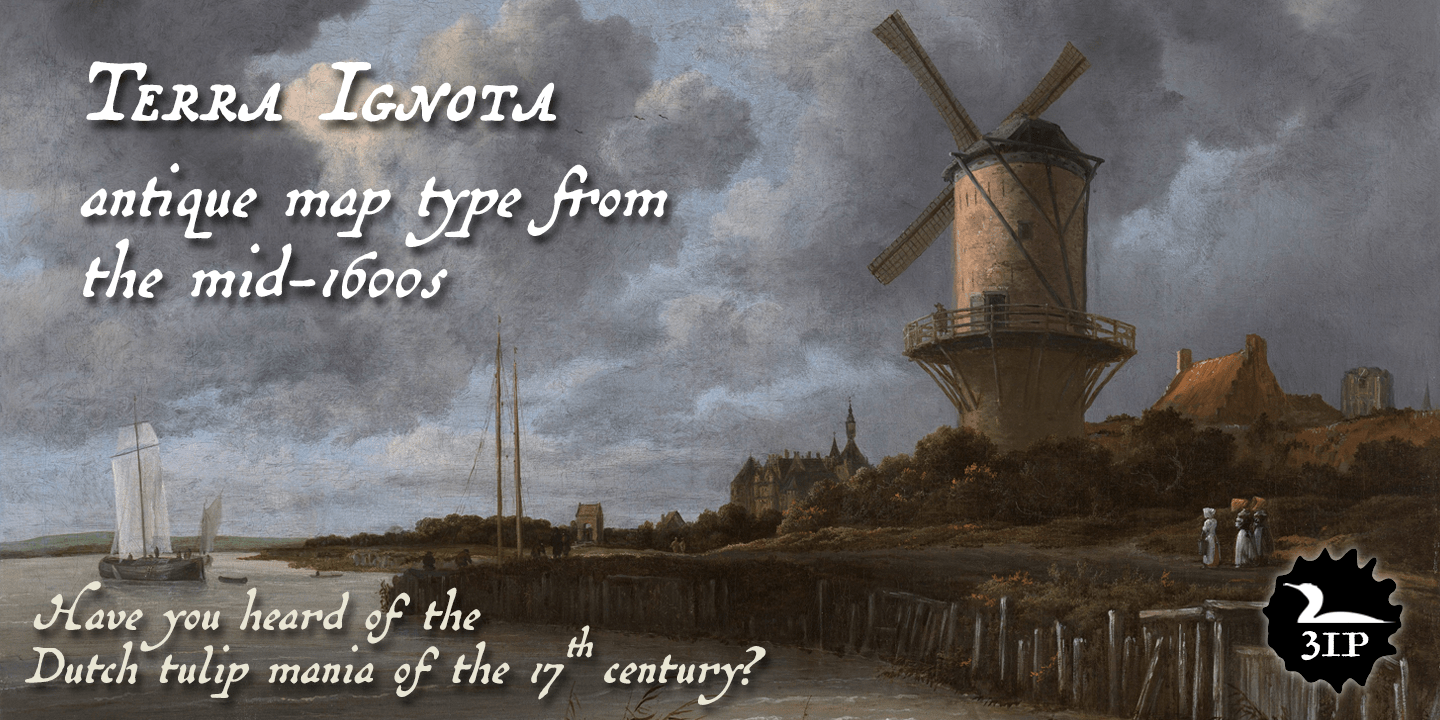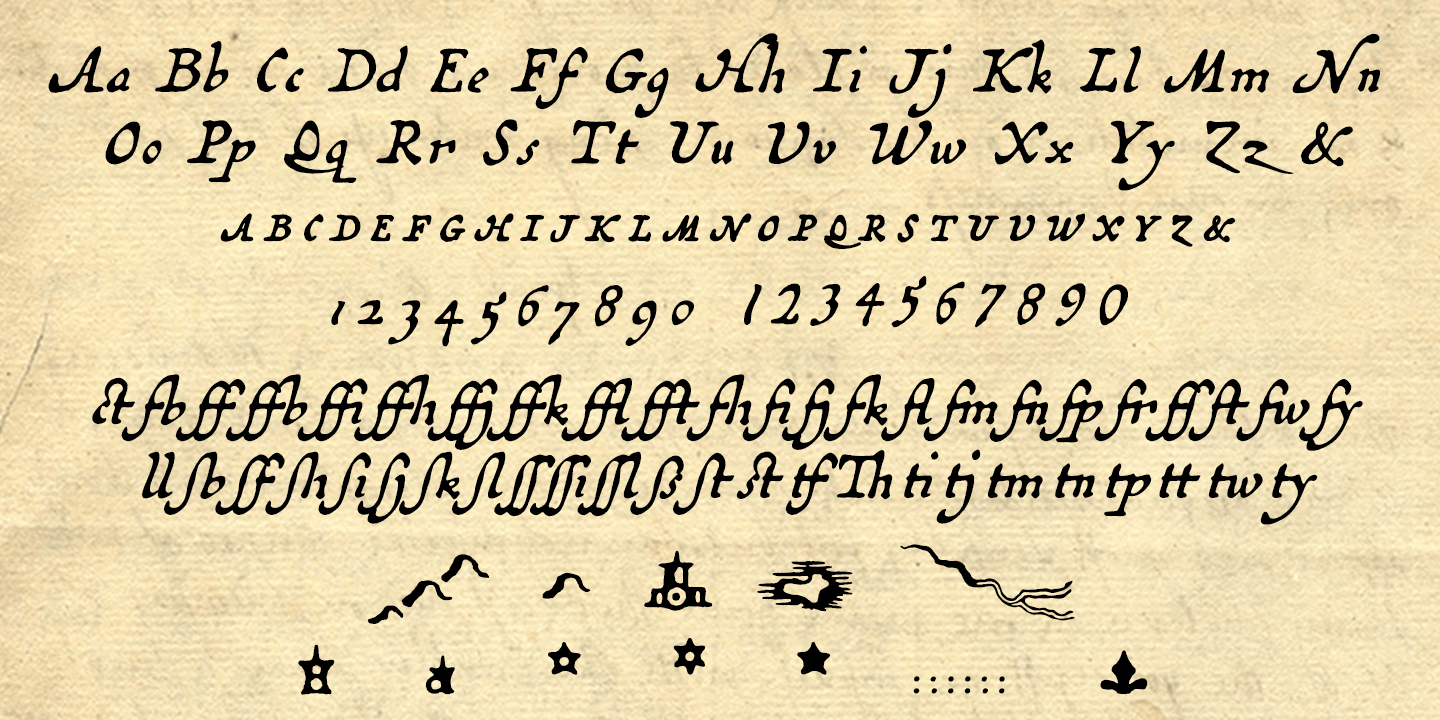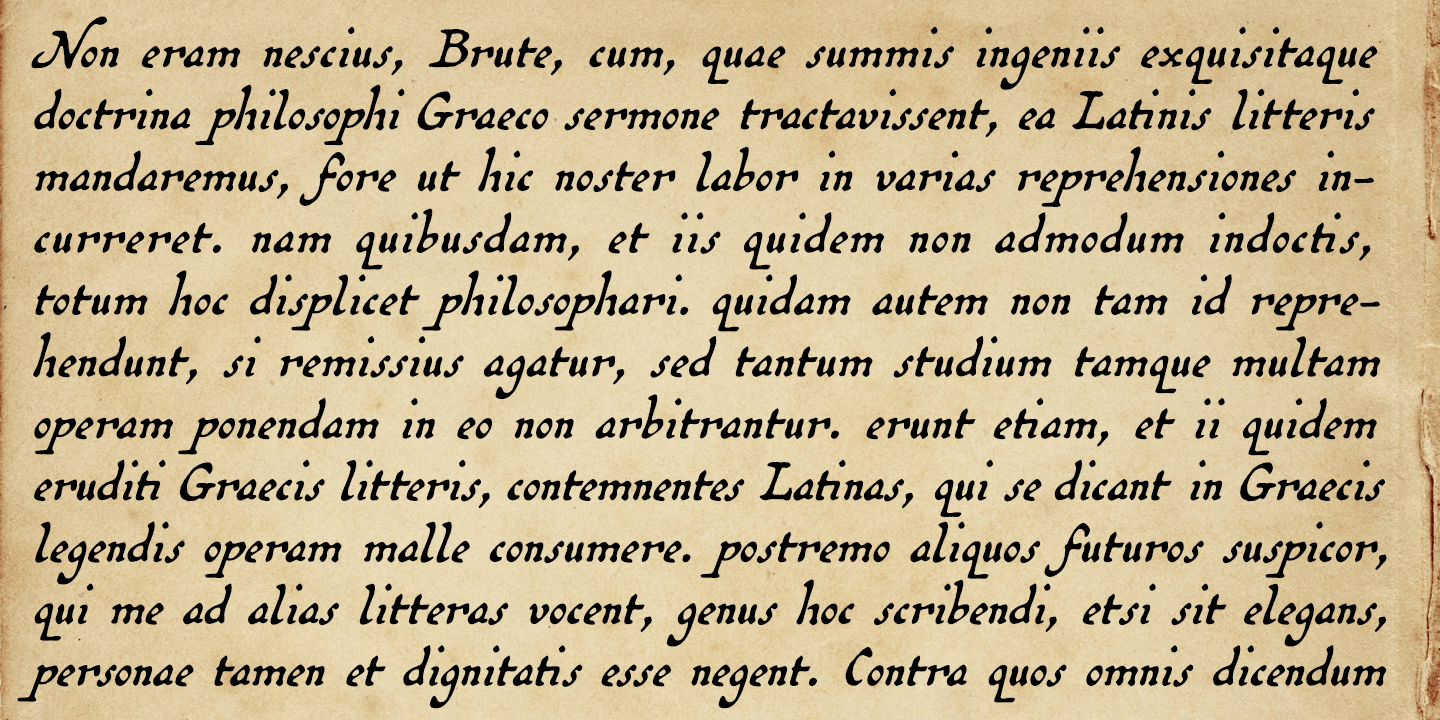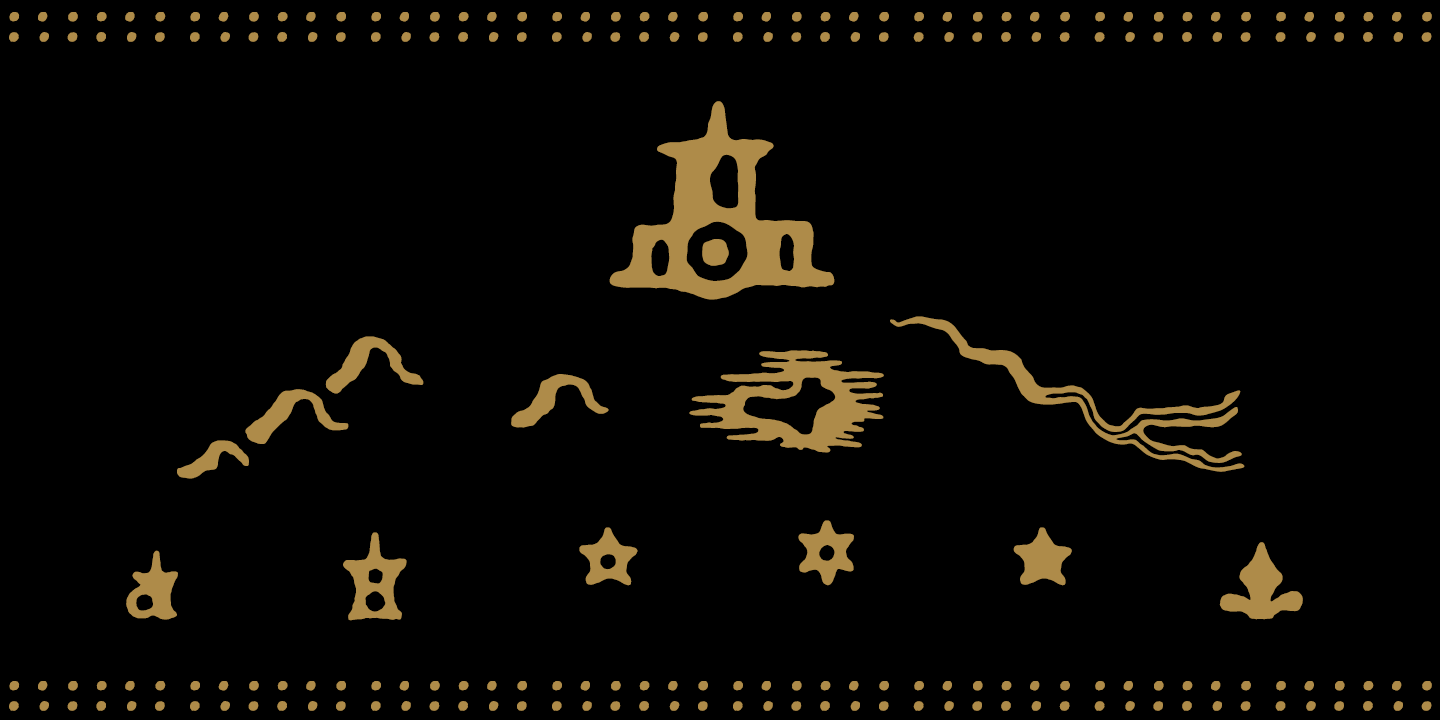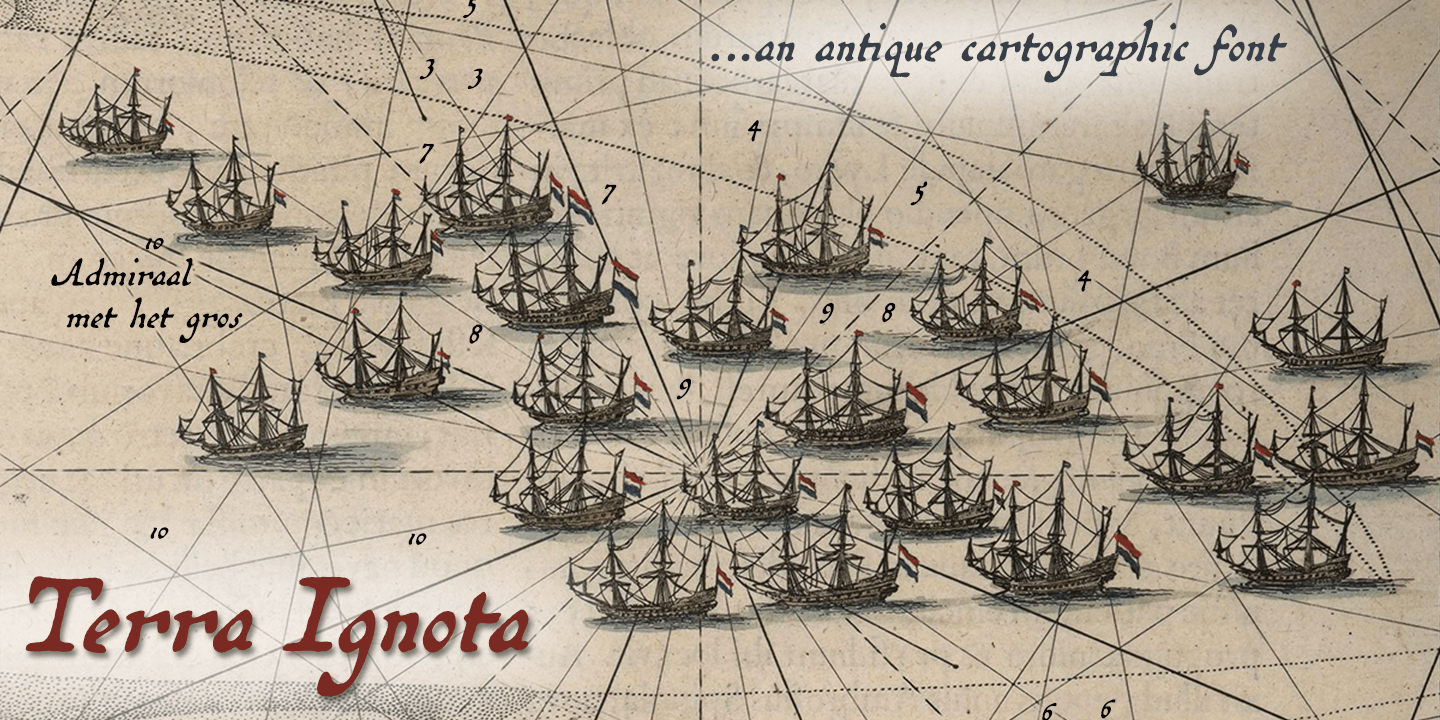
Terra Ignota
The idea for Terra Ignota came to me years ago as I was admiring a reproduction of "Amerique Septentrionale," a 1650 map by French cartographer Nicolas Sanson, given to me by my parents. The handlettering has a sort of rakish character, evocative of pirates or adventurers at a time of unbridled world exploration. I ended up putting the project aside, but the idea to create this font tugged gently at my mind until I simply couldn't ignore it any longer. I'd originally intended to call it "Terra Incognita," but during my dilly-dalliance another font turned up with that name, so Terra Ignota it is. It's got an italic slant and a deliberate feel, in keeping with its historical roots. Useful for simulating old hand-lettered documents. Has a full character set (and then some)